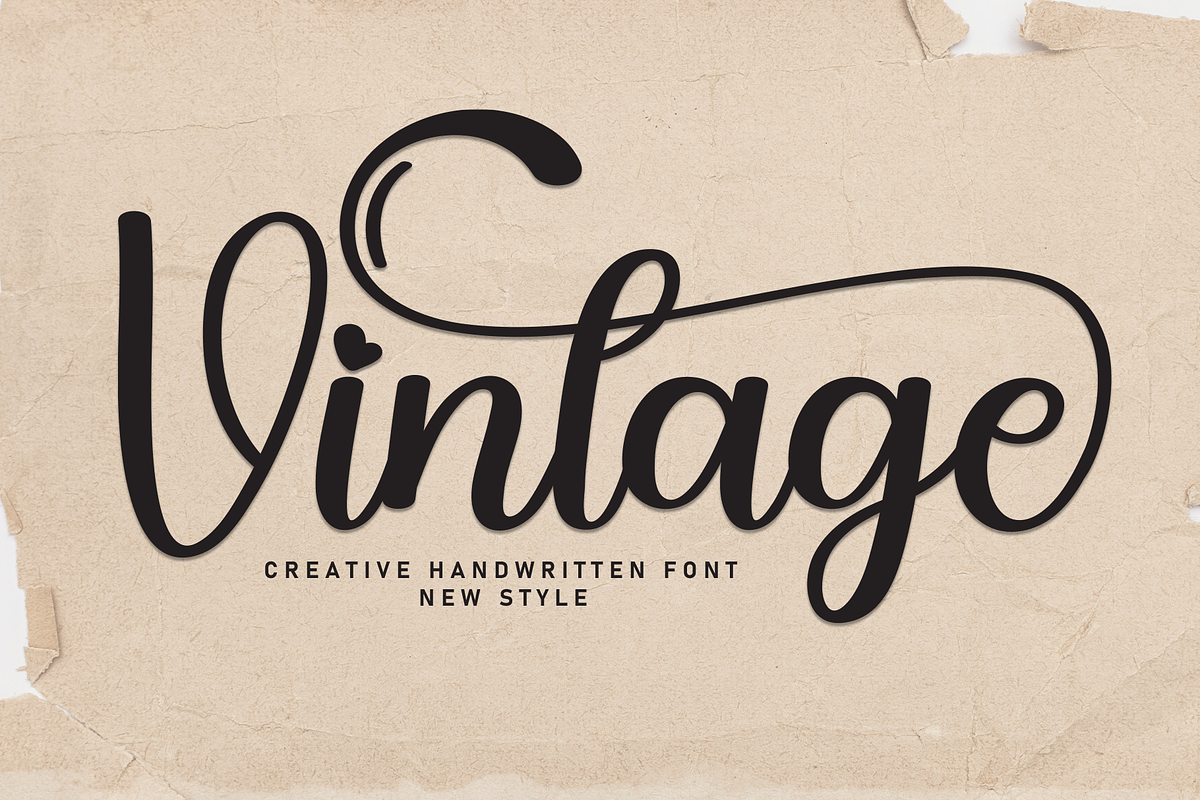
Vintage Script Font Free Download is a beautifully handcrafted typeface that brings classic charm and nostalgic elegance to your designs. With its flowing curves and retro-inspired letterforms, this font is perfect for logos, wedding invitations, product labels, signage, and anything that calls for a touch of timeless style.
The smooth, cursive strokes give Vintage a personal and expressive feel, making it ideal for projects that need warmth and sophistication. Whether you’re designing for a boutique brand or crafting a throwback poster, this script font delivers vintage vibes with modern usability.
Its excellent readability and balanced design make it just as effective in digital formats as it is in print.